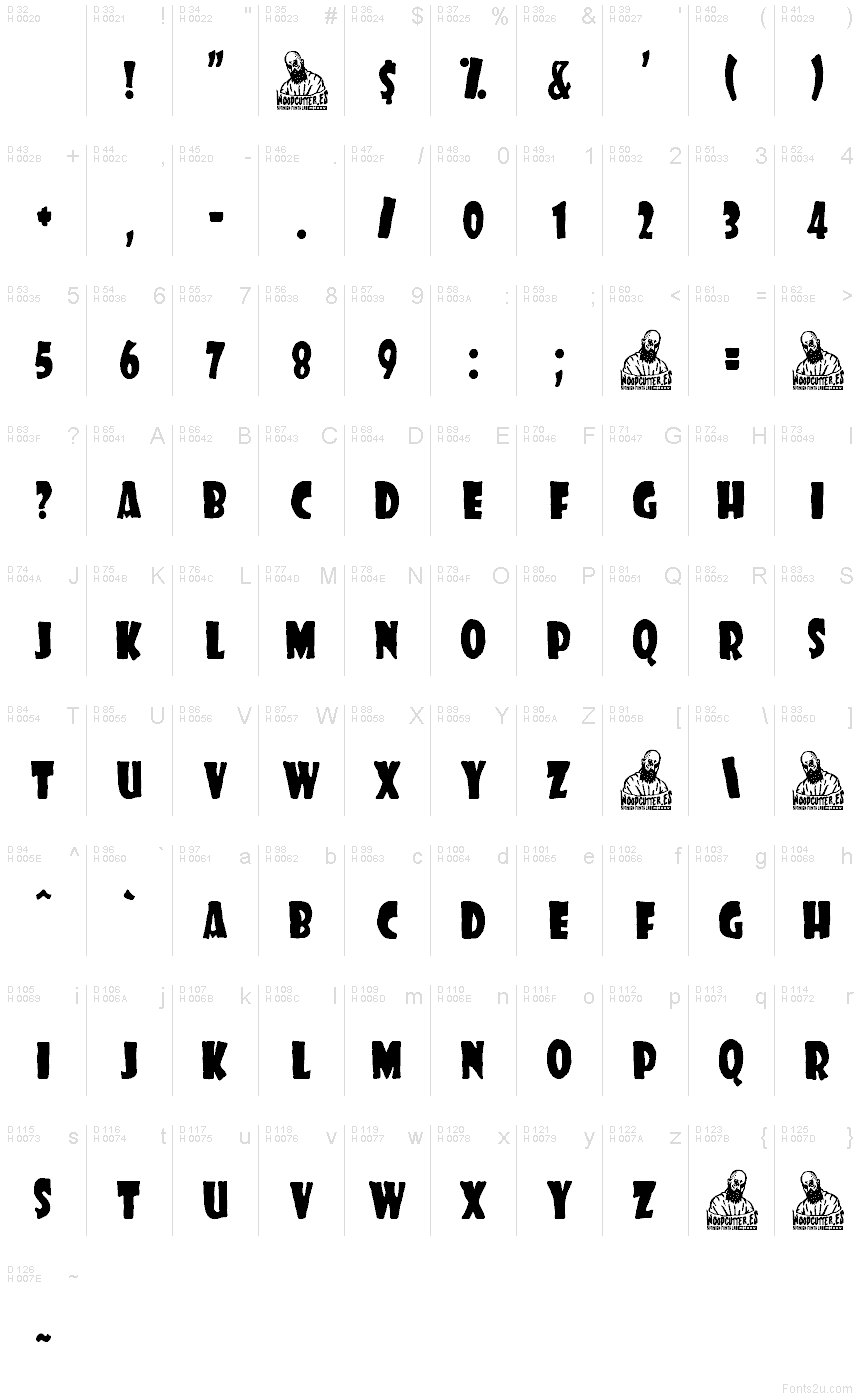
The Cartoon Hotel 03
The Cartoon Hotel 03 font by Woodcutter is a free cartoon display typeface that feels like it’s been splashed onto the page with a fat inky marker. Heavy, blobby letterforms and irregular outlines give it a Halloween-meets-Saturday-morning feel, as if the words are wobbling slightly on screen. Part of the The Cartoon Hotel family, it’s bold enough to hold its own over busy illustrations, gritty textures, or moody gradients.
Using The Cartoon Hotel 03, you can nail titles for spooky kids’ books, Halloween posters, playful horror movie credits, escape room branding, game logos, and YouTube thumbnails. The chunky shapes read loud and clear at large sizes, even from a distance, which makes this free font shine on signage and merch. Pair it with a clean geometric sans in smaller text to keep the overall layout readable and fun.